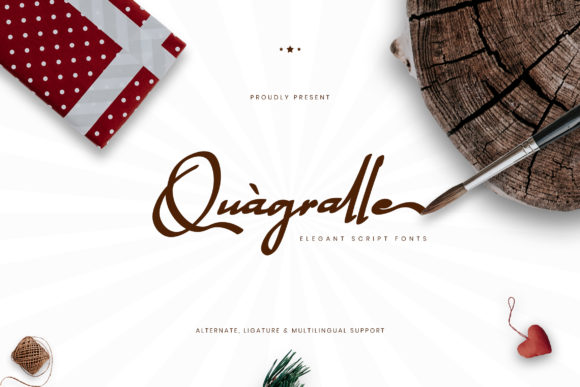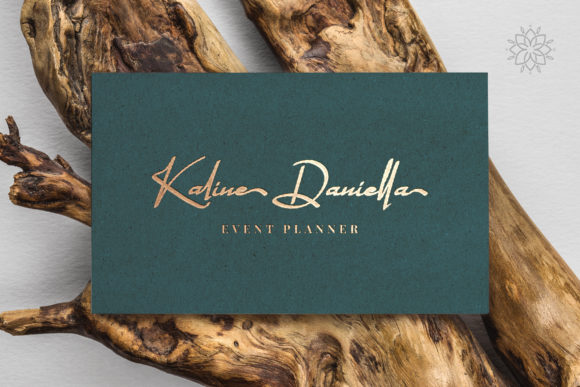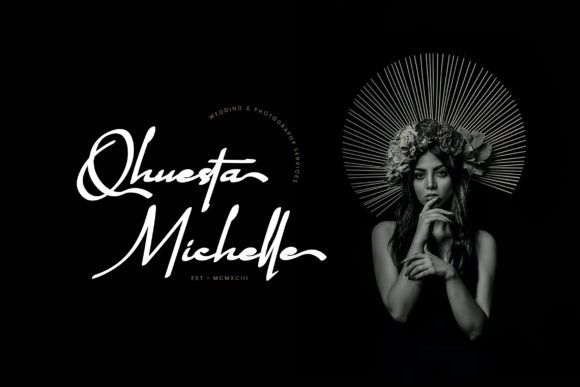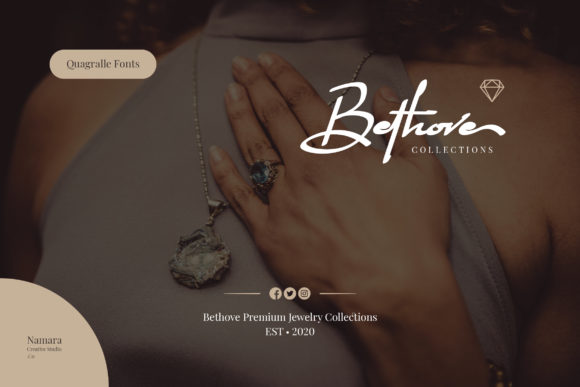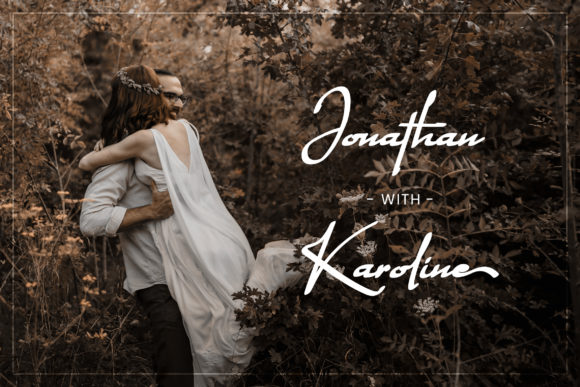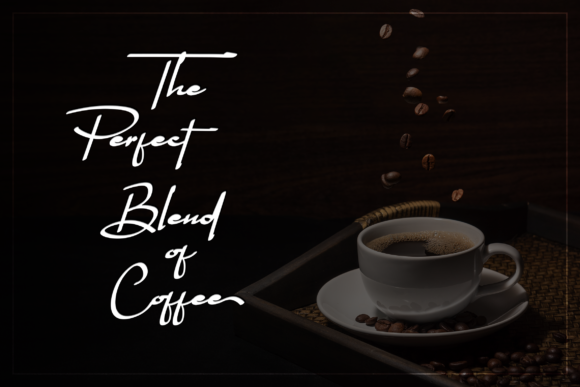
Quagralle Font
About Quagralle Font
Quagralle is a stylish, flowing and incredibly elegant script font. It looks stunning on wedding invitations, thank you cards, quotes, greeting cards, logos, business cards and every other design which needs a handwritten touch.